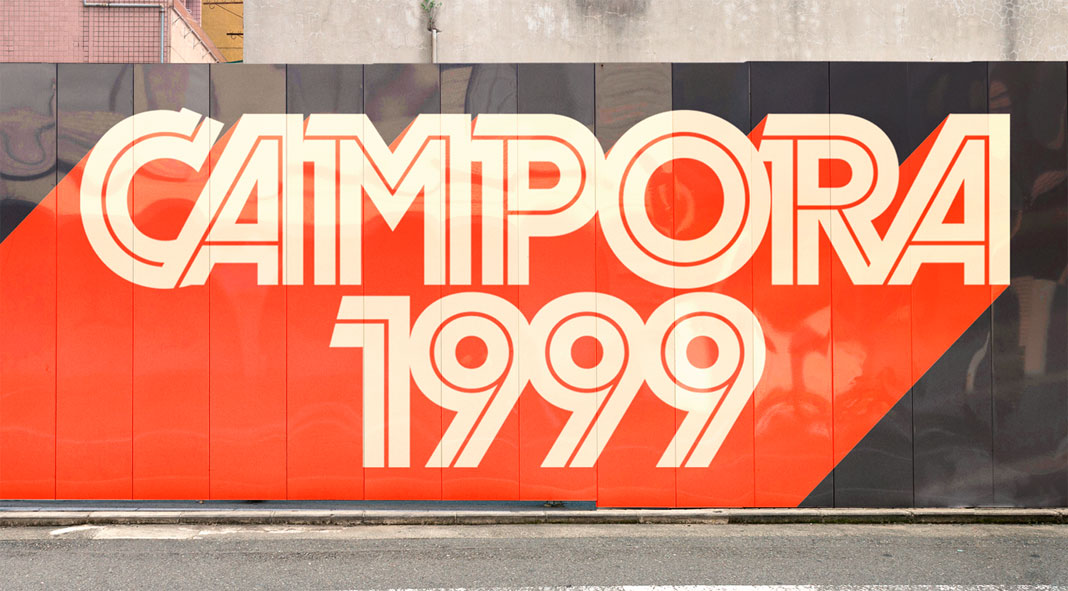
Campora, a stylish font family that combines sharp, geometric design with a wide range of revolutionary ligatures.
Earlier in 2019, the team of W Foundry attended the Bologna Children’s Book Fair in Italy. In their days off, they walked through the streets of Piazza Maggiore and luckily they saw an eye-catching store sign saying CAMPORA. After some closer investigations, they found out that it was made using the Dynamo font. They really loved the look of the typeface and thus they decided to develop a new font family inspired by its distinctive geometric design while adding some more weights and OpenType features to make it a fully functional family for different typographic needs. Already in the early stages of development, they found out that both Dynamo and Avant Garde share a quite similar design structure. Hence, they decided to make a type mashup including the sharpness of Dynamo combined with the striking ligatures of Avant Garde. The result is Campora, a new font family consisting of 19 styles including a regular and classic version as well as an inline version. The numerous weights make it a versatile font family, which is well suited for display use. To learn more, just have a look below or click on one of the following links.